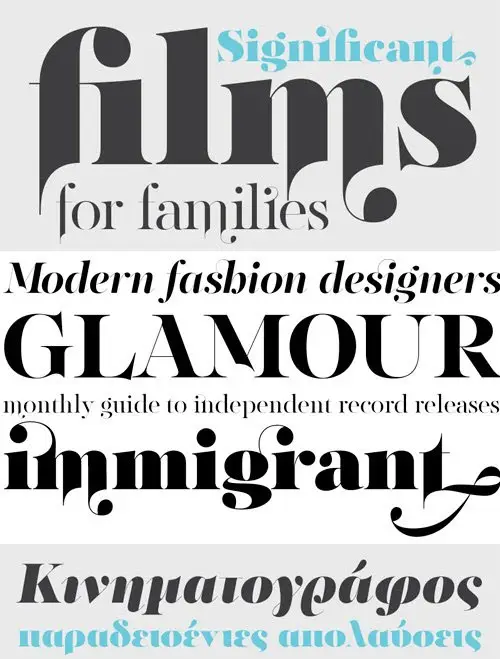
The objective of this project was to design a new typeface series for Grazia magazine. First published in 2010, Regal was later revamped and redesigned for commercial use, evolving into a type system with five related superfamilies. According to the brief, this typeface had to be elegant, luxurious, sexy, vibrant, reflect the female sensitivity and take into consideration a modern woman who is more proud, more connected, more spontaneous, open-minded and eager to try a whole host of new products and services. Targeting this consumption-wise and well-educated woman, required a typeface that is not strictly based on classic forms, but incorporates several distinct elements that express a modern woman’s personality and the products she consumes. In that respect, a whole series of 5 related superfamilies was designed, which not only emphasize femininity but also reflect both the romantic as well as the dynamic side of the female personality. For that matter, elegant curvy details were introduced in order to create a link to the female figure; teardrop terminals which reflect a woman’s sensitivity; pronounced quirks on upper and lower arms for her eyelashes; high-contrast, sharp corners at thinning terminals for her high heels; alternate glyphs for the woman who prefers to express her individuality -rather than slavishly follow trends- by using various accessories which can dramatically change her appearance; elegant endings and long curves to reflect her predisposition to dream; bell-shaped serifs with an inward rather than outward direction which recall streamlined seventies fashion. This series of typefaces is diverse in its construction as it consists of five related superfamilies i.e. text, display, finesse, swash and stencil. There is a variety of weights which range from regular to ultra black for each one of the five families. These families share common attributes but they differ in content according to each one’s usage. The whole superfamily type system is comprised of 47 weights with an average of 898 glyphs per weight. It supports simultaneously Latin, Cyrillic and Greek and comes with many alternate glyphs.